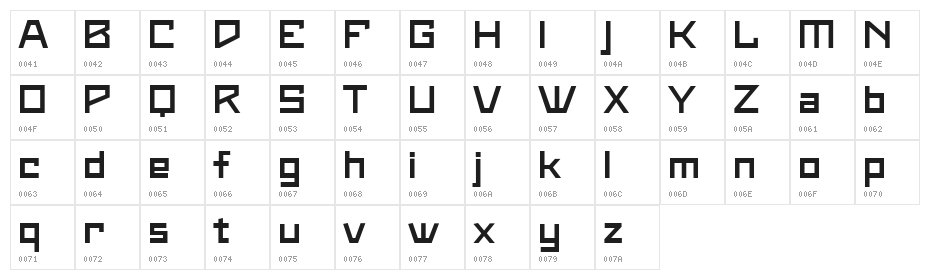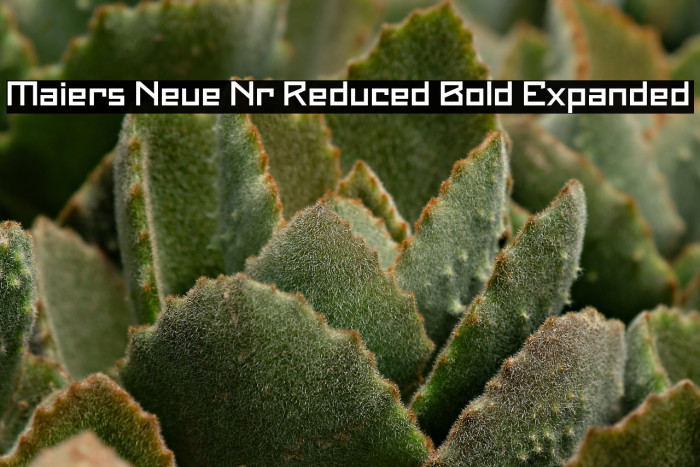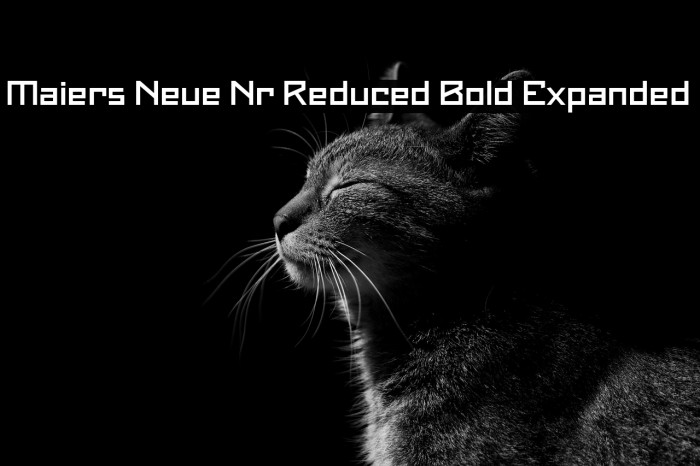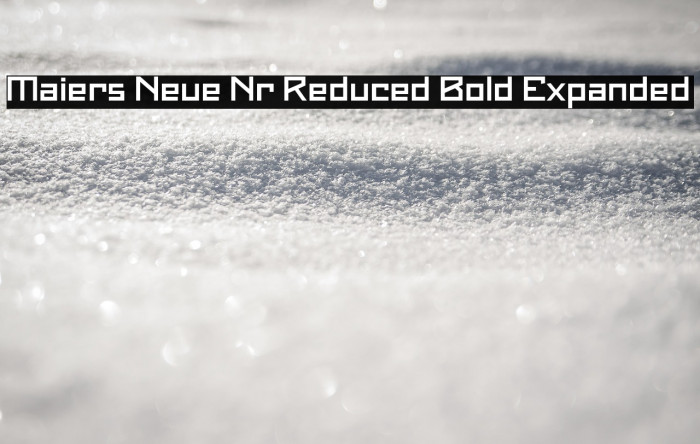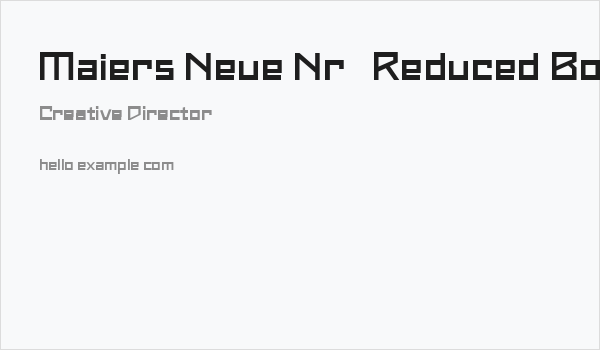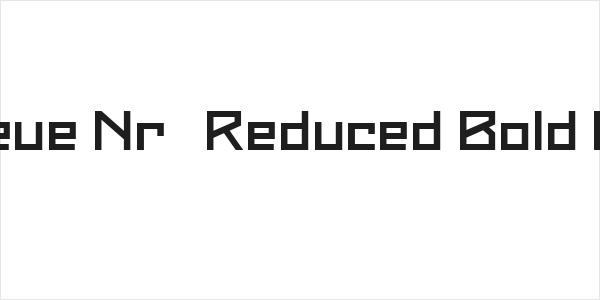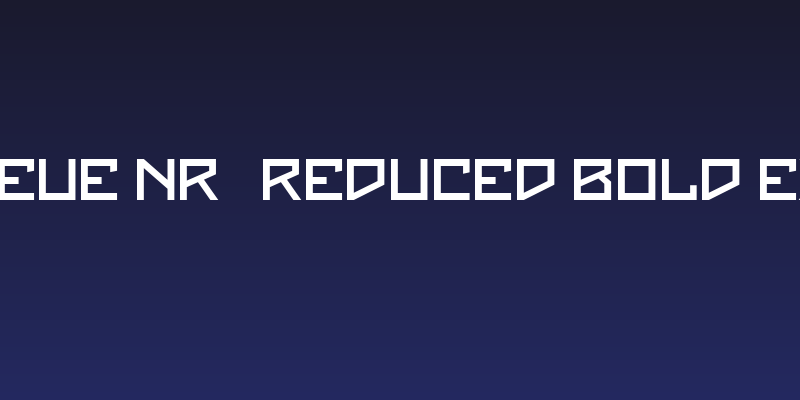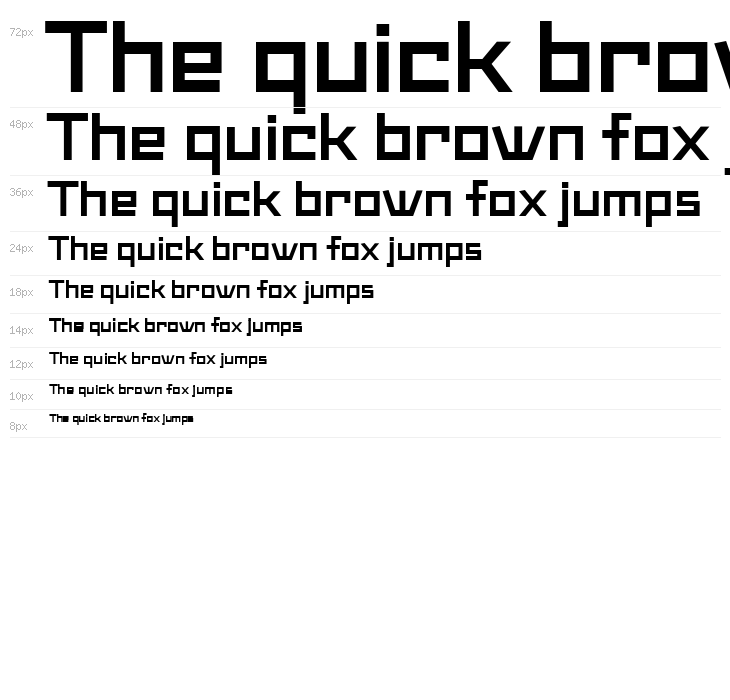
Maiers Neue Nr.8 Reduced Bold Expanded Font
Maiers Neue Nr.8 Reduced Bold Expanded Description
This font features a bold and expanded style with a geometric and modern appearance. The characters are constructed with straight lines and sharp angles, giving it a futuristic and technical look. The uppercase and lowercase letters maintain a consistent height, contributing to a uniform and structured aesthetic. The font's expanded width allows for a strong presence, making it suitable for attention-grabbing headlines or titles. The characters are evenly spaced, providing a balanced and readable text. Its bold weight enhances visibility and impact, making it ideal for designs that require a strong visual statement.
| Overall Style | Modern, Futuristic |
| Proposed Projects | Ideal for technology branding, futuristic posters, video game titles, and modern web design. |